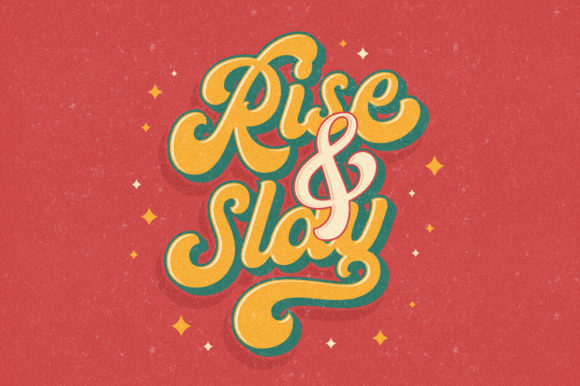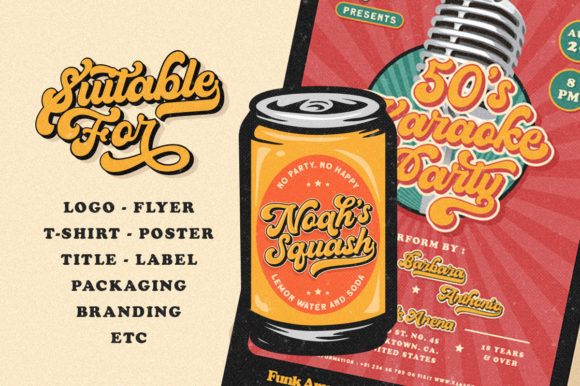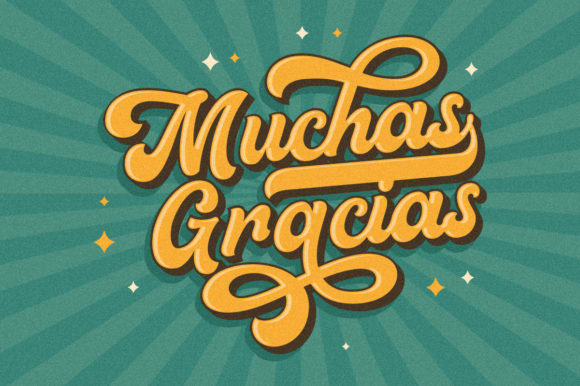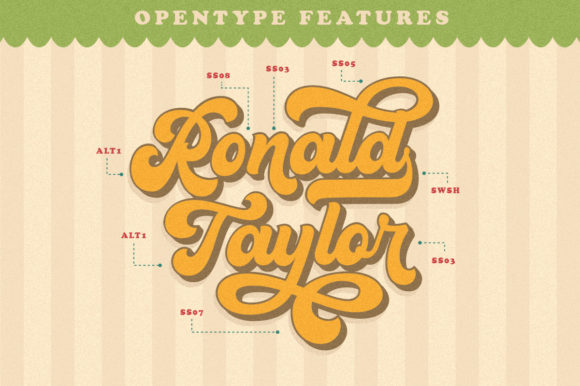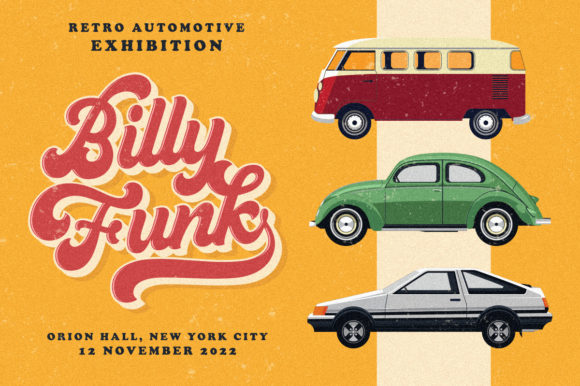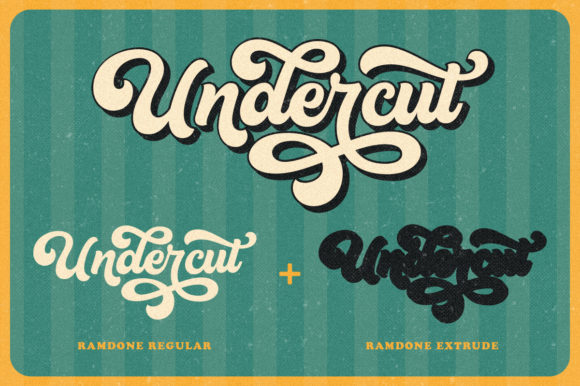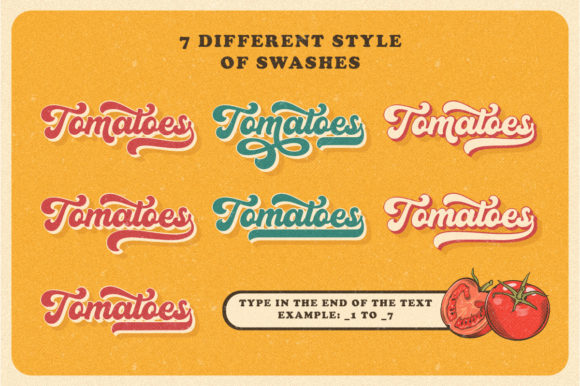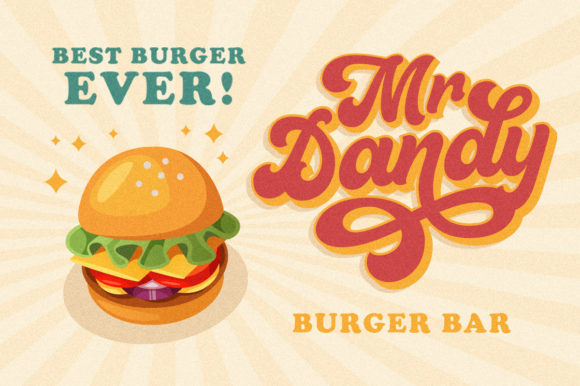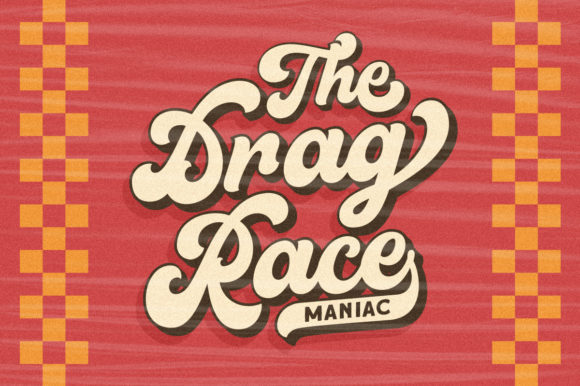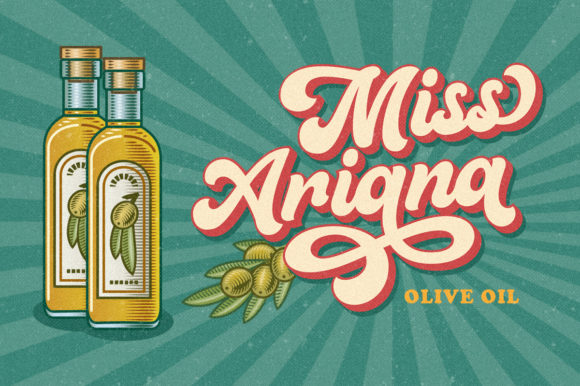
HomeScript FontsRamdone Font Script Fonts Ramdone Font FacebookXPinterestWhatsApp Ramdone Font Poster 2 Ramdone Font Poster 3 Ramdone Font Poster 4 Ramdone Font Poster 5 Ramdone Font Poster 6 Ramdone Font Poster 7 Ramdone Font Poster 8 Ramdone Font Poster 9 Ramdone Font Poster 10 Ramdone Font Poster 11 Ramdone Font Poster 12 About Ramdone Font Ramdone is a retro bold script with classic letters. Get inspired by its vintage charm! DOWNLOAD ON CREATIVE FABRICAThis font is sold and delivered by Creative Fabrica. Font Canyon may earn a commission if you buy through this link. People also explored Glanden Wood Font Two Convexion Best Teacher Font Winter Vintage Font Flowrites Font Simply Neatly Font Amore Eiffel Font The Eight Font 473 0 TagsRamdone Font Previous articleChelistine FontNext articleLove Story Font LEAVE A REPLY Cancel reply Comment: Please enter your comment! Name:* Please enter your name here Email:* You have entered an incorrect email address! Please enter your email address here Website: Save my name, email, and website in this browser for the next time I comment. Personal Use Free Theobald Personal Use Free Read more about this font Zephan Personal Use Free Read more about this font Breakaway Personal Use Free Read more about this font Monogram Veg Personal Use Free Read more about this font BLOG Using Fonts in Digital Marketing: Tips to Strengthen Your Brand Identity In the realm of digital marketing, every visual element plays a crucial role in shaping a brand's identity, and fonts are no exception. The... Best Fonts for YouTube Videos: Make Your Thumbnails Stand Out Best Fonts for T-Shirt Design – Top 2025 Picks Exploring Font Trends